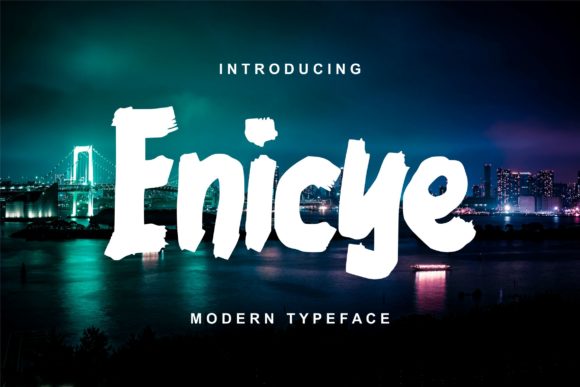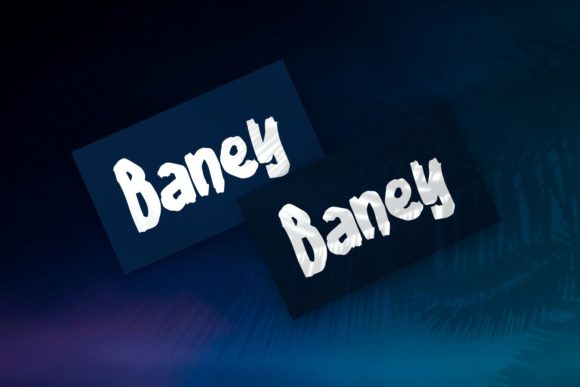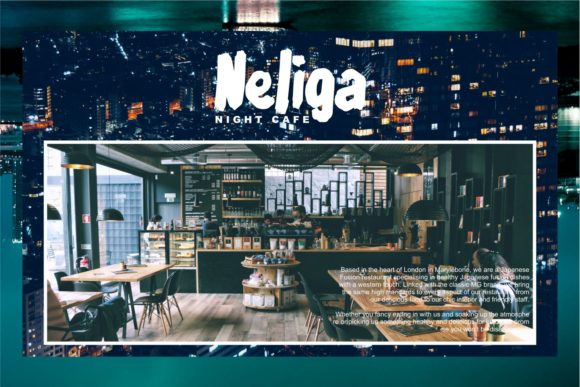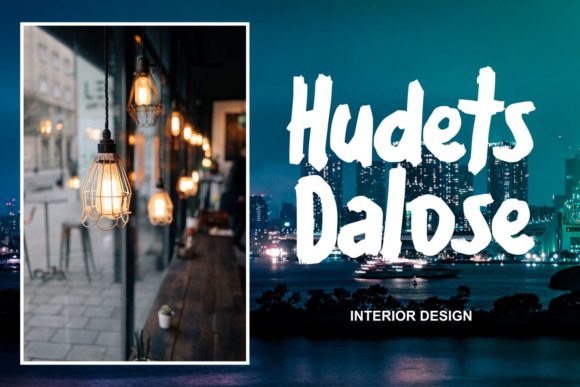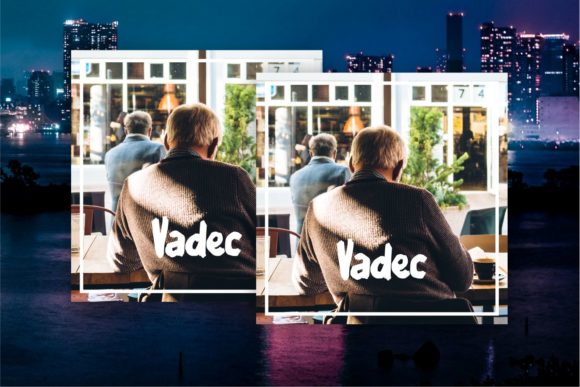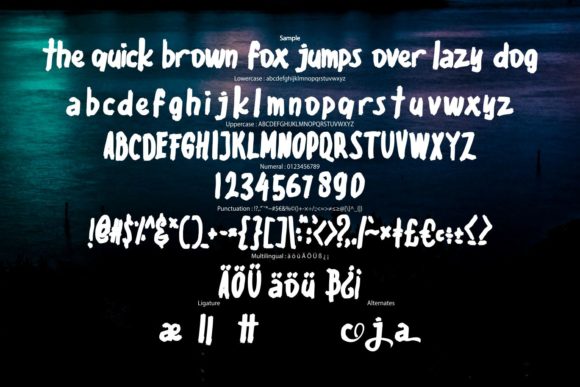
Enicye Font
About Enicye Font
Enicye is a modern handwritten font. It is inspired by classic typography and brings its own unique style to any design project. Enicye is best suited for headlines of all sizes, as well as for blocks of text that have both maximum and minimum variations. Whether it’s for web, print, moving images or anything else – Enicye will look spectacular.